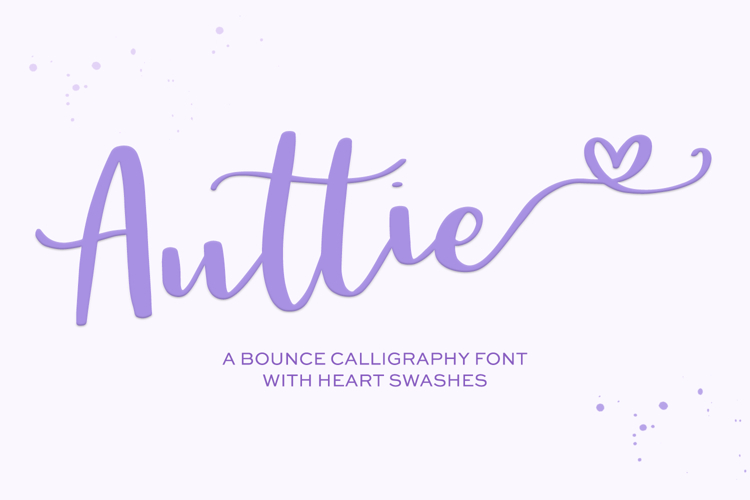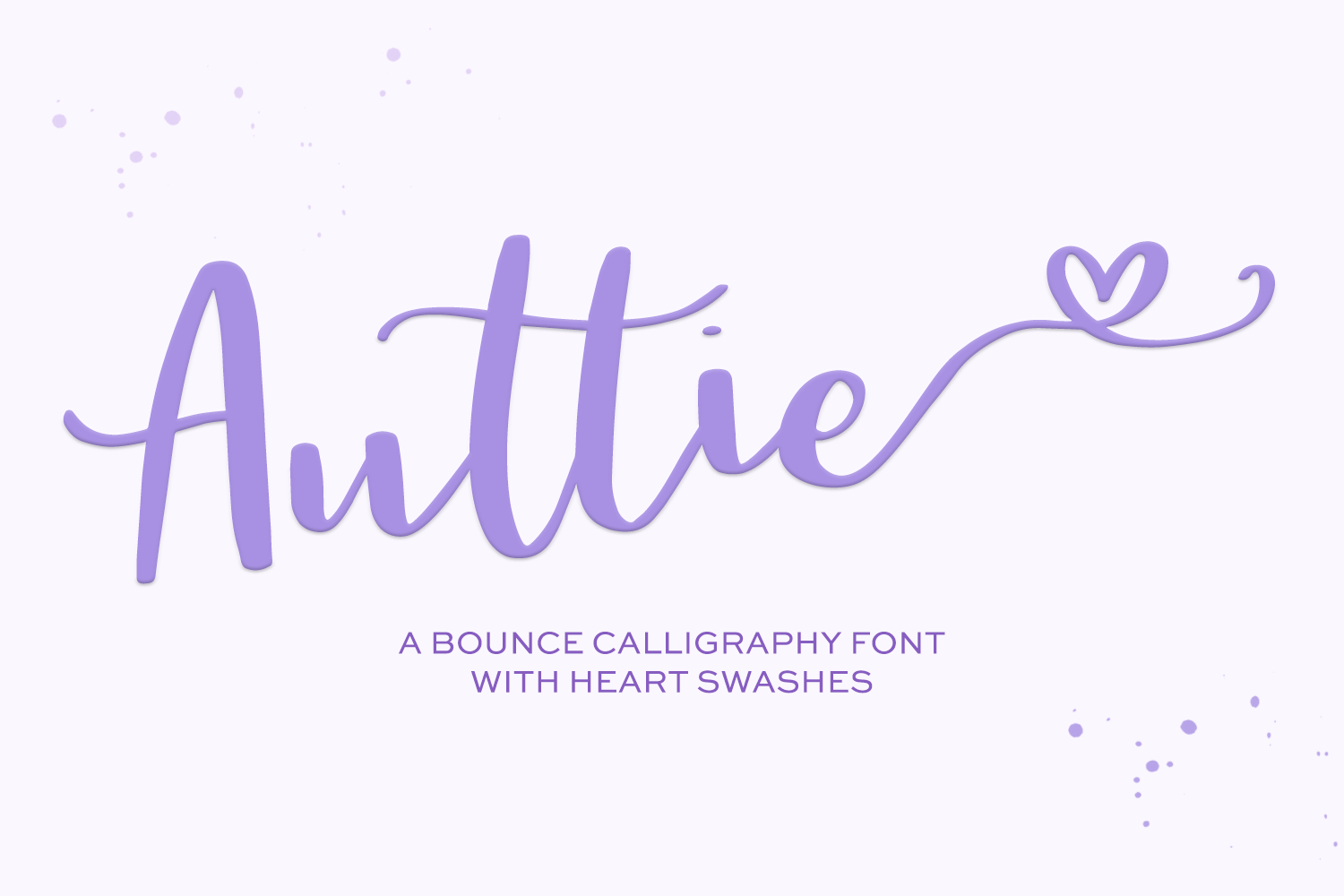
Meet Auttie, a sweet hand-lettered script with adorbs heart swashes, and lovely flowy swashes.
Features include:
- a varied, funky baseline to give a realistic hand-lettered look
- double letter ligatures
- left + right heart swashes and flowy swashes on each lowercase letter